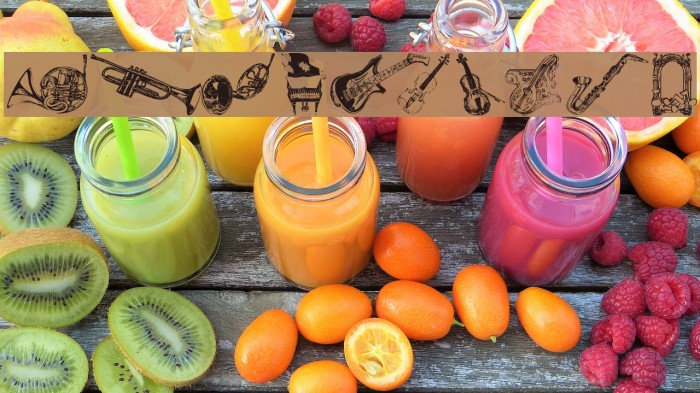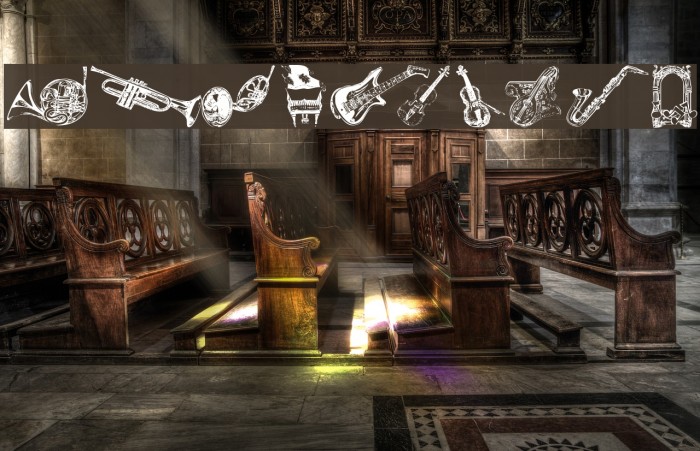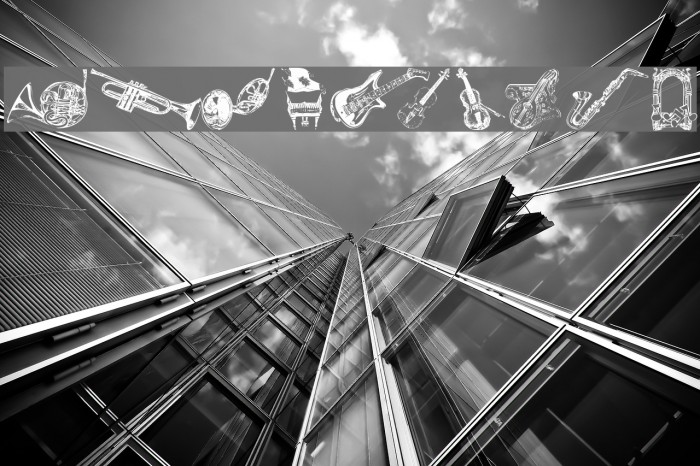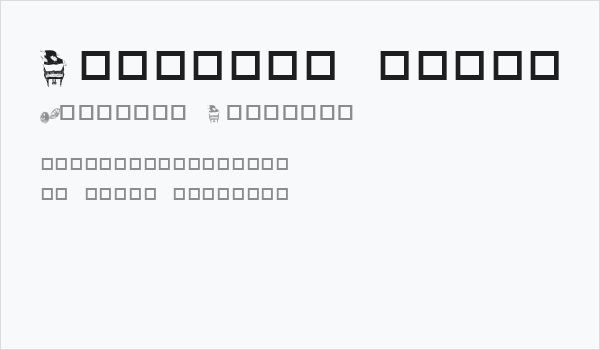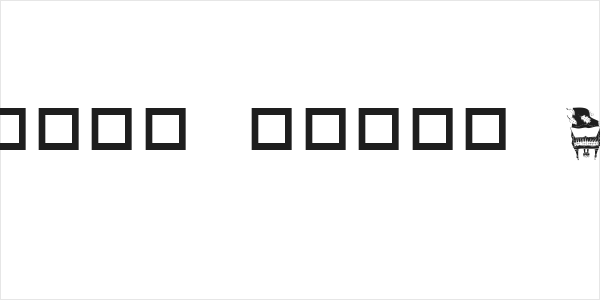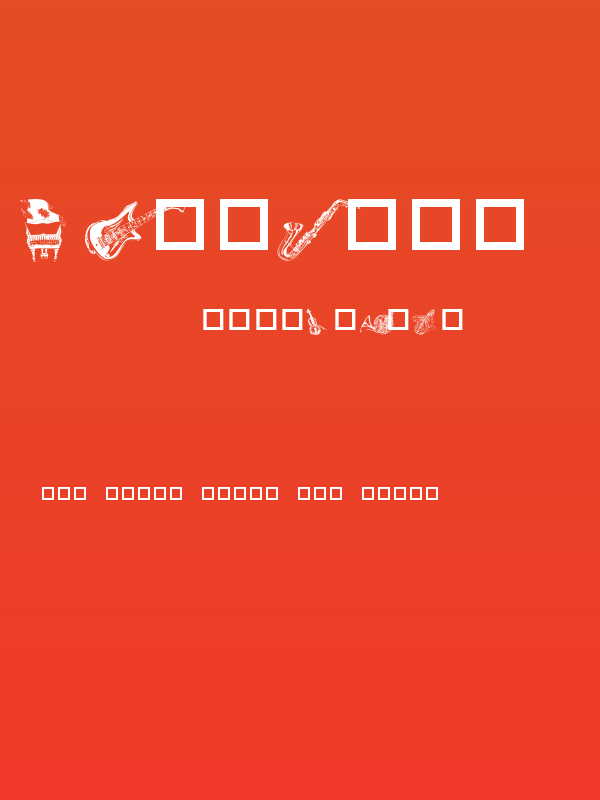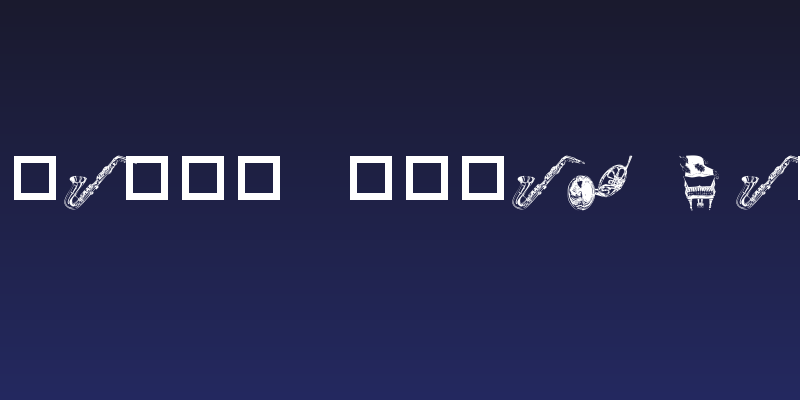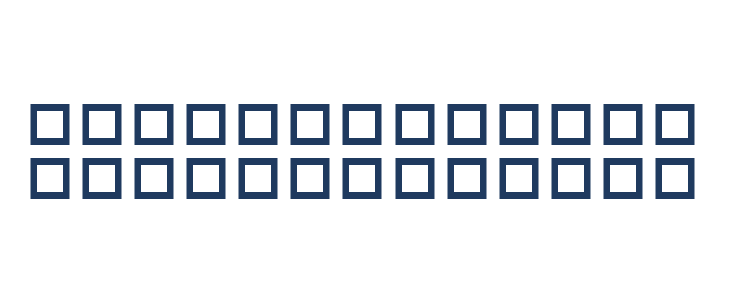
Destinys Music Dings Font
Destinys Music Dings Description
This is a decorative font featuring a collection of musical instrument illustrations. Each character is represented by a different instrument, creating a playful and thematic design. The illustrations are detailed, capturing the essence of each instrument, making it ideal for music-related projects. The font is not designed for traditional text but serves as a creative visual element.
| Use Case | Logos, Posters, Invitations |
| Proposed Projects | Ideal for music event posters, educational materials for music classes, or themed invitations. |